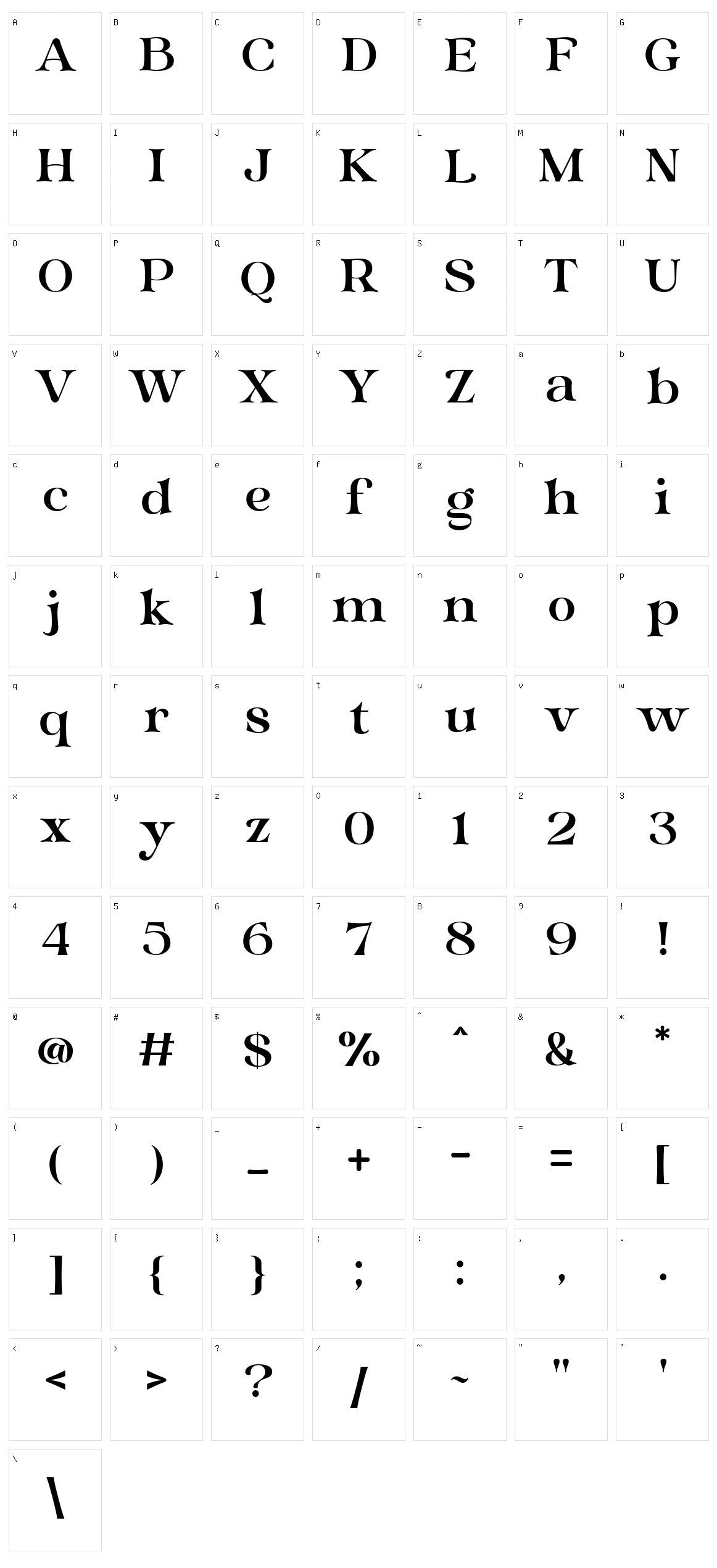
The free font Spidro Marley is carefully designed by Alit Design, showcasing a thoughtful balance of creativity and usability and falls under the Serif font style. When you download the ZIP file, it contains only 111.88 KB of font files, making it lightweight and quick to download. Please review the license details below to understand permitted usage and distribution rights. If license information is not available, we recommend using this font for personal projects only or contacting the author directly for commercial usage permissions.